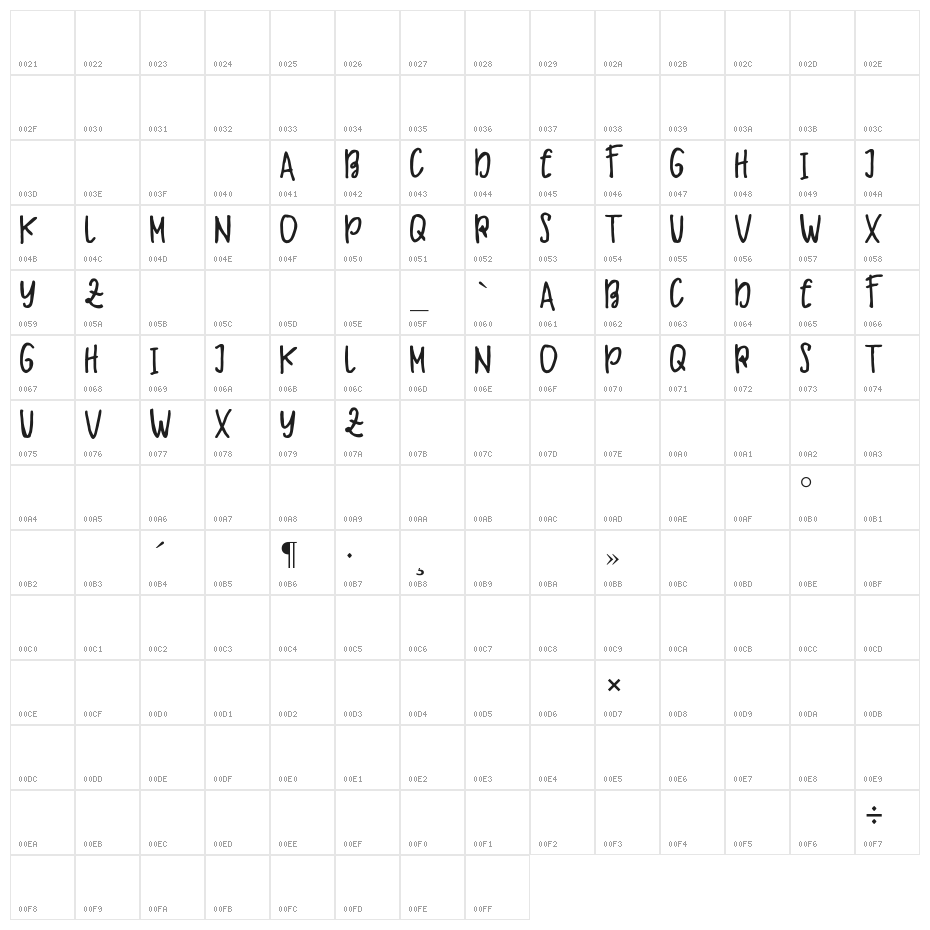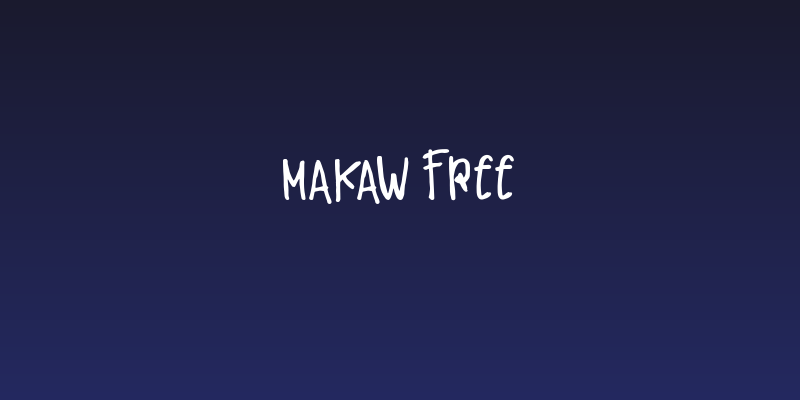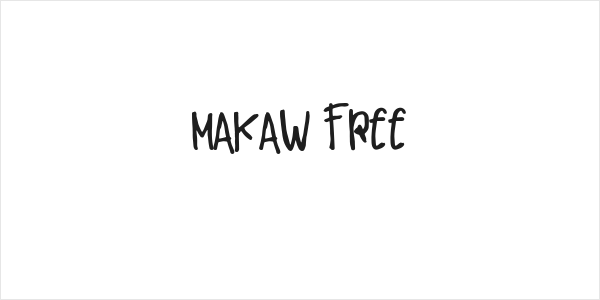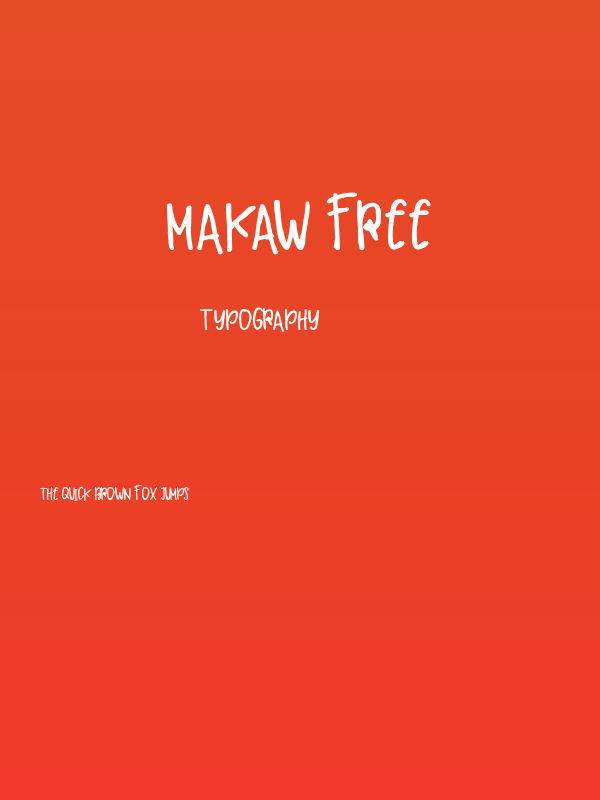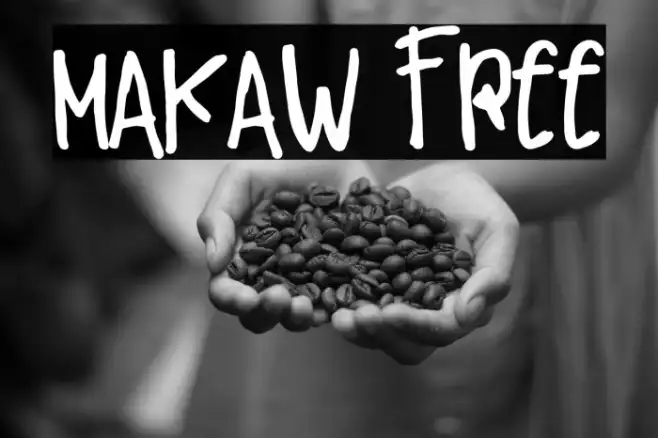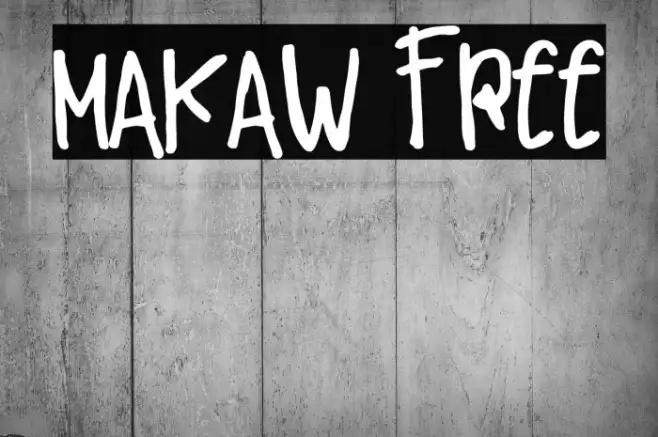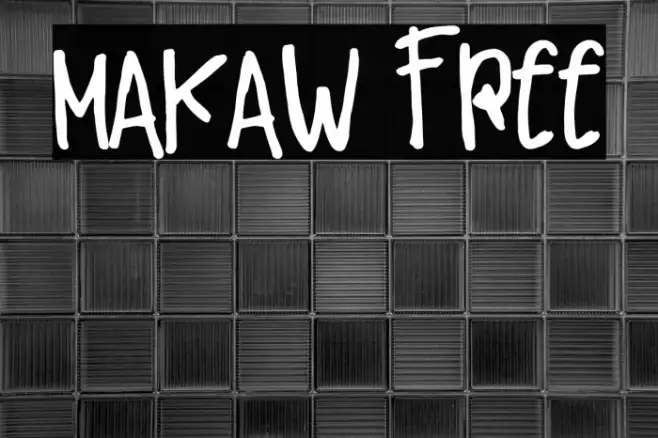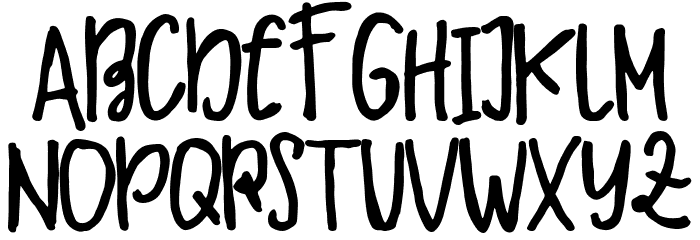
Makaw Free Font
Makaw Free Description
This font features a playful and informal handwritten style, characterized by its bold and slightly irregular strokes. The letters have a casual, organic feel, with varying heights and widths that add to its charm. The uppercase and lowercase letters maintain a consistent style, with rounded edges and a slight slant that gives a sense of movement. The numbers and special characters are designed to match the overall aesthetic, making it versatile for various uses. Its unique personality makes it stand out, perfect for projects that require a touch of creativity and fun.
| Overall Style | Playful, Casual |
| Proposed Projects | Ideal for greeting cards, children's books, playful branding, and social media graphics. |